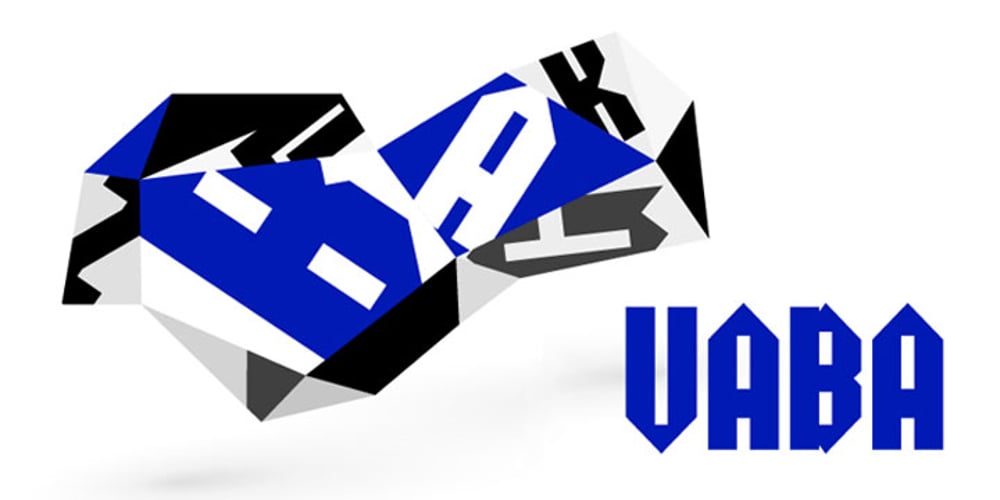
Vaba Font Family was designed by Radko Hromátka and published by Radko Hromátka. Vaba contains 1 styles and family package options. VABA is a caps typeface inspired by the work of Vladimir Bartosek, Slovak designer. VABA refers to the Slovak typography in the 30ties of the last century, but it also appears modern and original in today’s design. Typeface has plain, broken structure, it is significant in text, which makes it ideal as a display type.